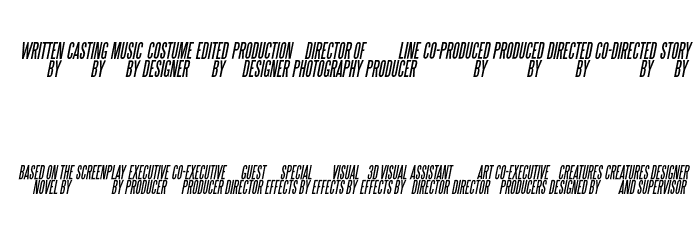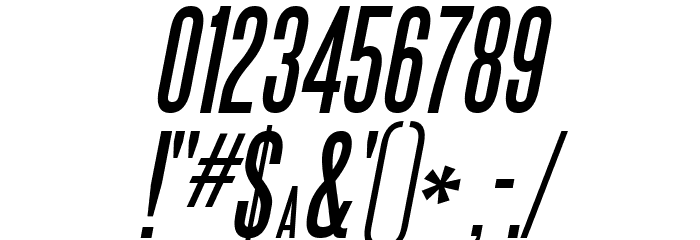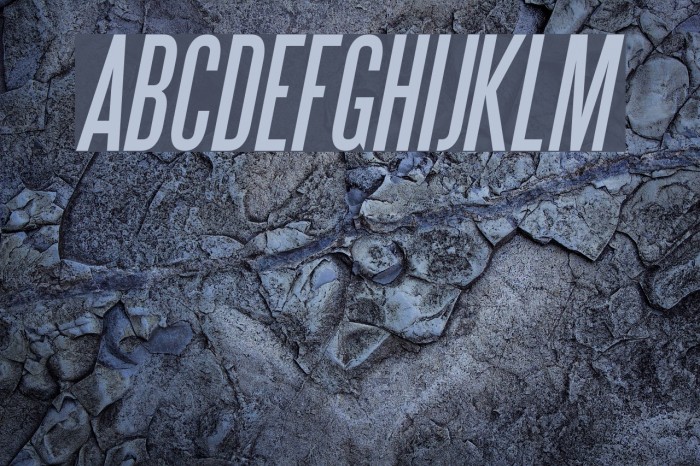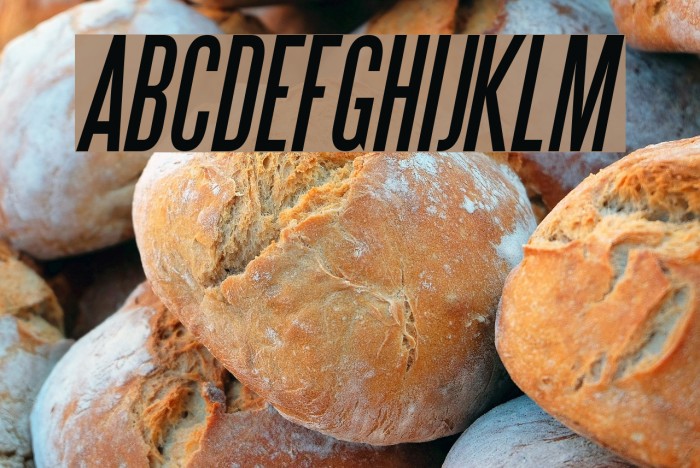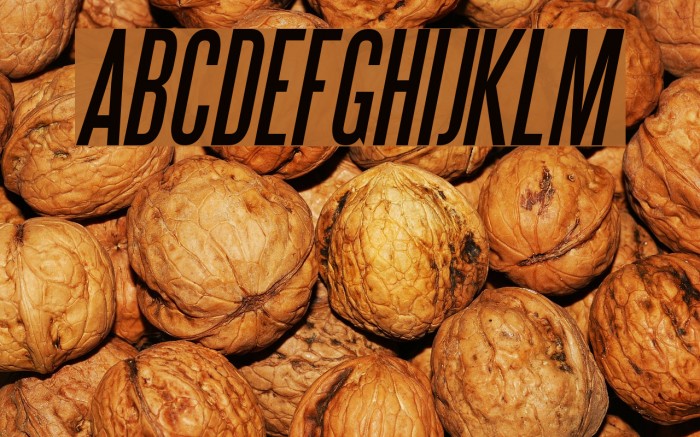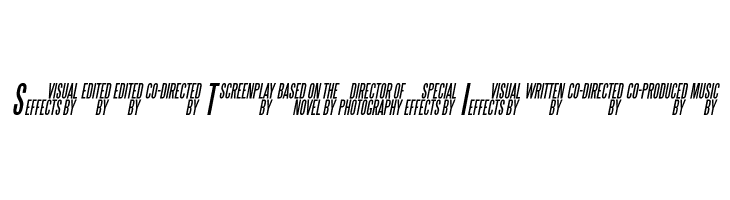
Steel Tongs Italic Font
This font exhibits a bold and italicized style, characterized by its tall, narrow letterforms and sharp, angular edges. The uppercase letters are particularly elongated, giving a sense of height and elegance. The lowercase letters maintain a consistent style, complementing the uppercase with a slightly more compact form. The numerals are aligned with the overall design, featuring the same italic slant and bold weight. Special characters are included, maintaining the font's cohesive aesthetic. The font's design is modern and sleek, making it suitable for dynamic and impactful visual presentations.
A bold, italicized font with tall, narrow letterforms and a modern aesthetic.